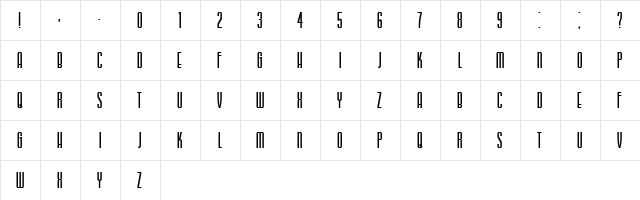
Electricity City Regular
Design Context for Electricity City Typeface
Electricity City has a distinctly futuristic character, with geometric precision and clean angles that feel at home in technology, gaming, and sci-fi contexts.
Pro Tip: Try Electricity City with generous letter-spacing in UI labels and navigation — the geometric forms benefit from room to breathe.